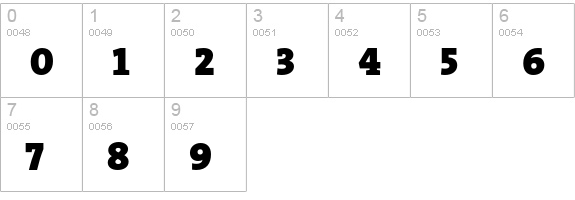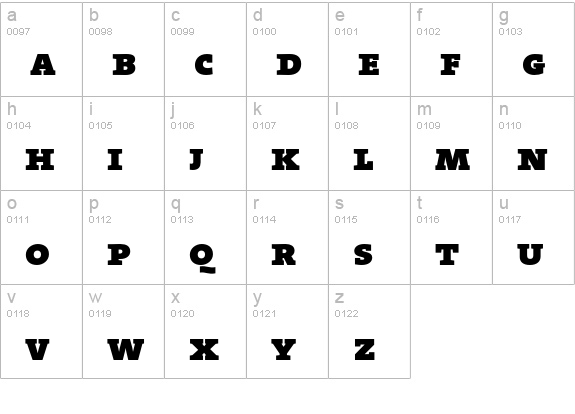
TheSerif Black Caps Font Details
TheSerif Black Caps is a maximum-weight, dramatic variant in the TheSerif typeface family \xE2\x80\x94 well suited to maximum-impact headlines, posters, and packaging.
TheSerif Black Caps font is a stunning display typeface that exudes elegance and sophistication. Its refined and sharp letterforms are expertly crafted to capture attention and make a bold statement. With its distinctive and timeless design, this font is perfect for adding a touch of class to any project. TheSerif Black Caps font boasts a unique blend of modern and classic elements, resulting in a versatile typeface that can be used across a wide range of design applications. Whether you're creating a logo, branding materials, editorial layouts, or even signage, this font will elevate your design to new heights. TheSerif Black Caps font's strong and commanding presence is further enhanced by its generous x-height and well-balanced proportions. This ensures excellent legibility even at smaller sizes, making it suitable for both headline and body text usage. The sharp serifs add a touch of sophistication, while the bold weight conveys a sense of authority and confidence. What's even better is that TheSerif Black Caps font is available for free download at FontsMarket.com. This means that you can effortlessly enhance your design projects without incurring any additional costs. So, why wait? Embrace the elegance and versatility of TheSerif Black Caps font and take your designs to the next level.